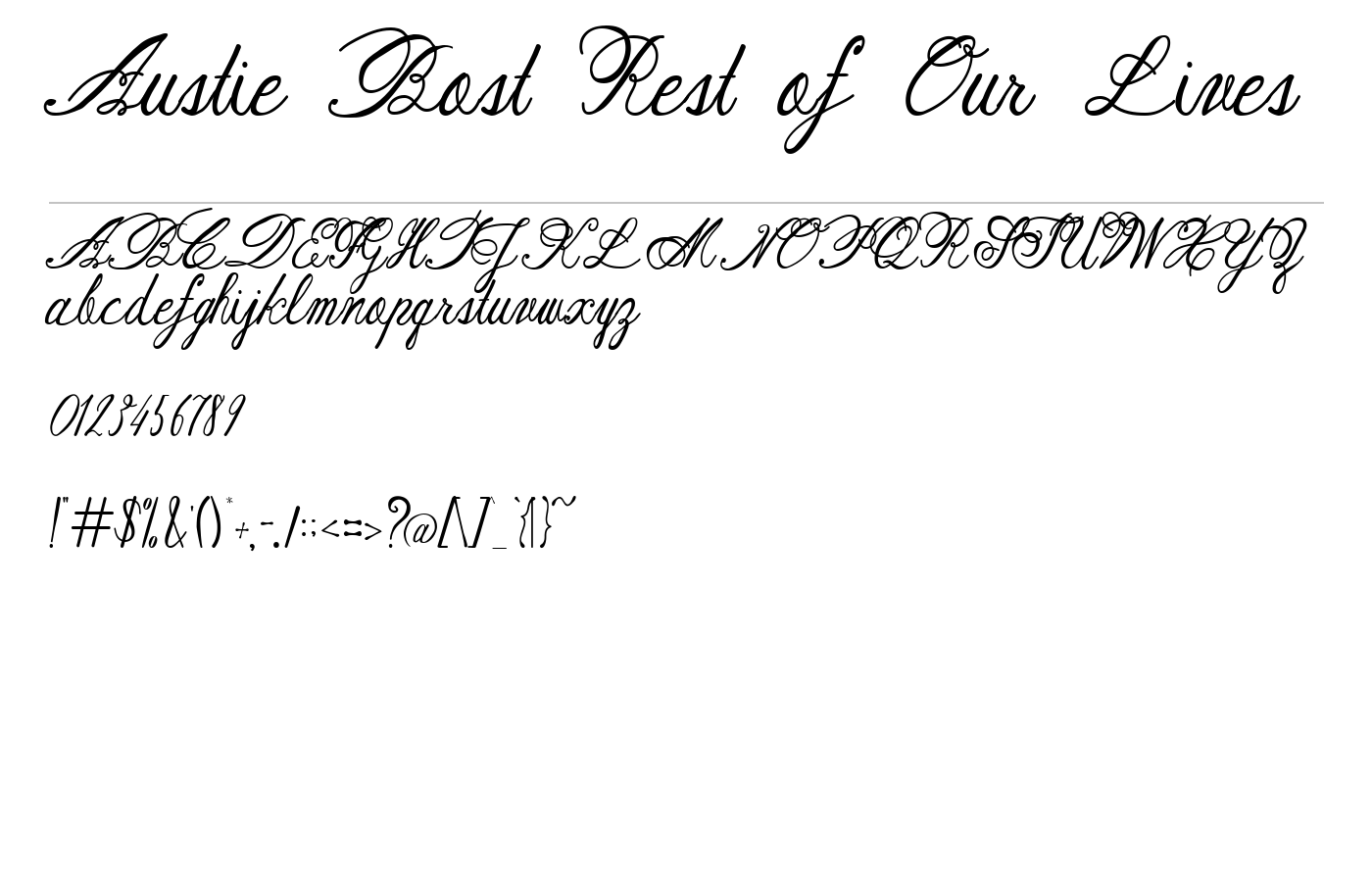
Austie Bost Rest of Our Lives is an elegant script font that features delicate, flowing strokes with a refined, handwritten style. Its slender weight and graceful curves give it a sophisticated, romantic feel, making it ideal for invitations, branding, and decorative uses where a touch of classic beauty and personal charm is desired. This font works best in designs that seek to convey warmth and elegance with a timeless, artistic flair.
Austie Bost Rest of Our Lives Font
About Austie Bost Rest of Our Lives Font
| Font family | Austie Bost Rest of Our Lives Font |
| Designer | Austin Owens |